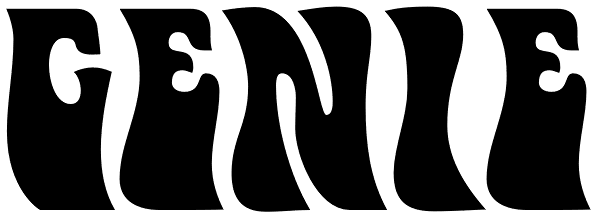
Genie
The flower children of Canada Type are at it again. This time we went above and beyond the call of duty and right into the land of reconstruction in order to make this font. When we saw a few letters from an early 1970s film type called Jefferson...